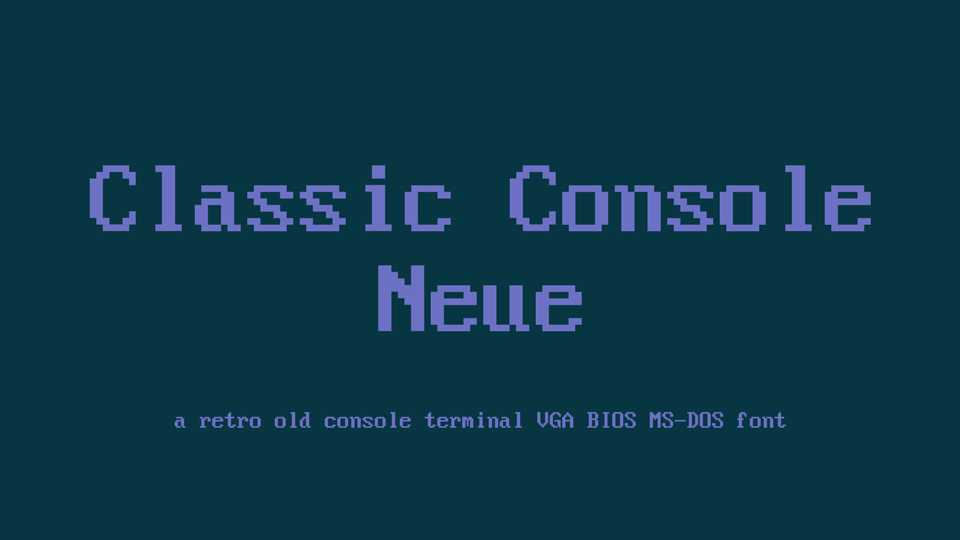
Download Classic Console Neue font, an original 8×16 ASCII console fixed width typeface including many code pages (retro old console terminal VGA BIOS MS-Dos font).